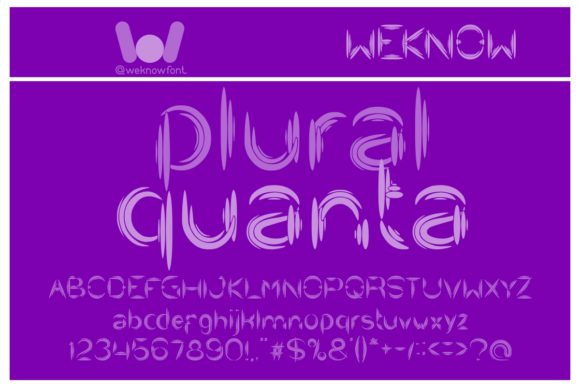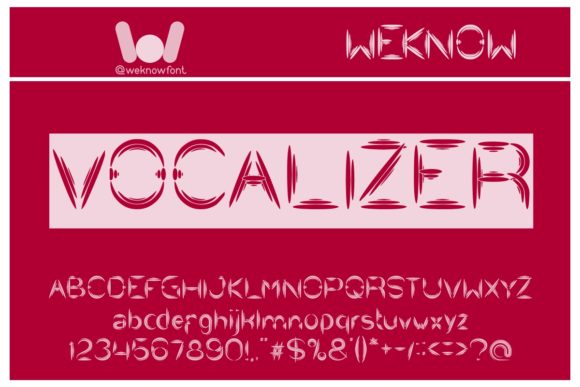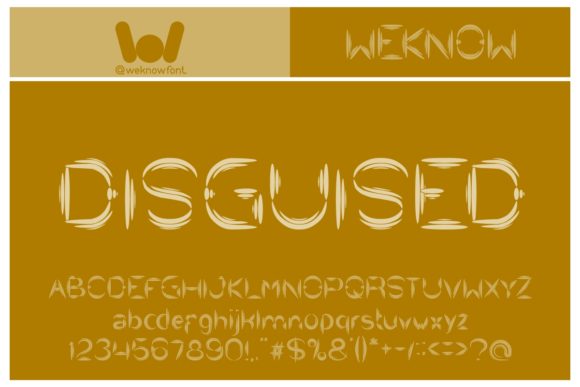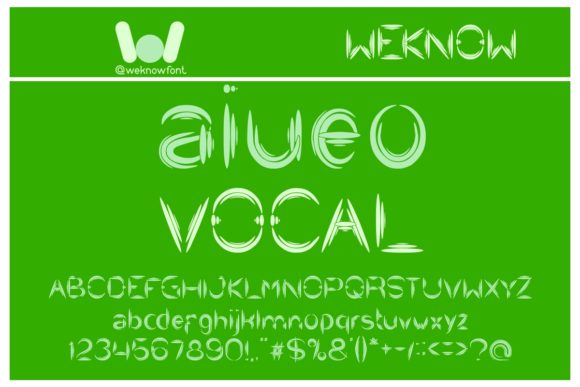
Introduction to Quantum Leap Font
Have you ever found yourself stuck in a design rut, unable to find the perfect font to bring your creative project to life? I know I have. That’s why I’m excited to share with you the Quantum Leap Font, a game-changing display font that’s about to take your designs to the next level.
With its sleek, futuristic aesthetic and high-quality design, the Quantum Leap Font is the perfect addition to any designer’s toolkit. Whether you’re working on a poster, flyer, or print project, this font is sure to make a statement and leave a lasting impression. And the best part? It’s a free download, making it an invaluable resource for designers of all levels.
Key Features of Quantum Leap Font
- Unique, futuristic design perfect for creative projects and innovative designs
- Features a transparent background, allowing for seamless integration with various design elements
- Supports a wide range of languages and characters, ideal for international design projects
- High-resolution design (300 DPI) for crisp and clear display in various applications
Honest Review: Quantum Leap Font
As a designer, I’ve had my fair share of dealing with fonts, and I have to say that the Quantum Leap Font is a pretty impressive addition to my design resource library. ✨
The font itself has a unique, futuristic feel to it that makes it perfect for creative projects that require a touch of sci-fi or high-tech flair. The fact that it’s available as a free download is a definite plus, especially for indie designers on a tight budget.
Some of the key features of the Quantum Leap Font that stood out to me include:
- High-quality glyphs that render well on both screen and print
- Transparent background options for seamless integration with other design elements
- A wide range of weights and styles to choose from, making it easy to find the perfect fit for your project
While the Quantum Leap Font is an excellent choice for many design projects, I do have a few minor quibbles. ⚠️ The font’s compatibility with older systems can be a bit wonky, and I’ve encountered some issues with font rendering on certain browsers.
Overall, I’d highly recommend the Quantum Leap Font to designers looking for a high-quality, free font that’s perfect for creative projects. With its unique style and high-quality design, it’s definitely worth adding to your design resource library.
How to Use Quantum Leap Font
The Quantum Leap Font is a high-quality, versatile design resource perfect for creative projects. Its transparent background and sleek design make it an ideal choice for various applications.
To get the most out of the Quantum Leap Font, experiment with different font sizes, colors, and styles. You can also combine it with other design elements to create a unique and eye-catching design.
The Quantum Leap Font is suitable for a variety of creative projects, including branding, marketing materials, and graphic design. Its transparent background and sleek design make it an ideal choice for applications where a clean and modern look is required.
2. Quantum Leap Font Alternative: Arial
Arial is a classic sans-serif font that is widely used in design and is a great resource for designers. It is available for free download and has a transparent background. When to use: Arial is ideal for projects that require a clean and simple look. Comparison: Arial has a more traditional and straightforward look compared to Quantum Leap Font, which has a more stylized and creative look.
Yes, the Quantum Leap Font is designed with a transparent background, making it easy to overlay on various design elements. This feature allows designers to create visually appealing and cohesive designs without the need for manual background removal.